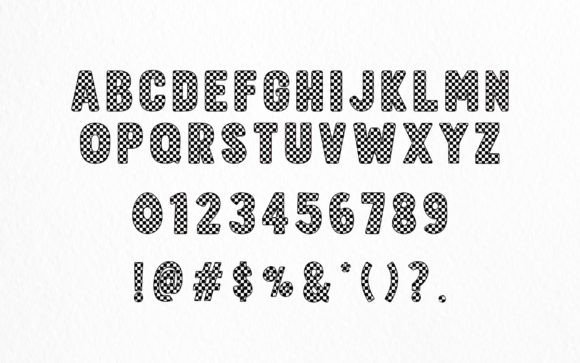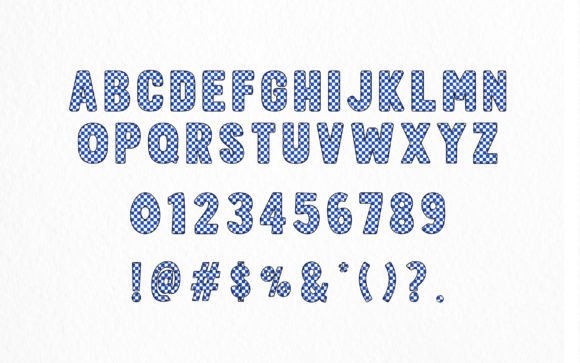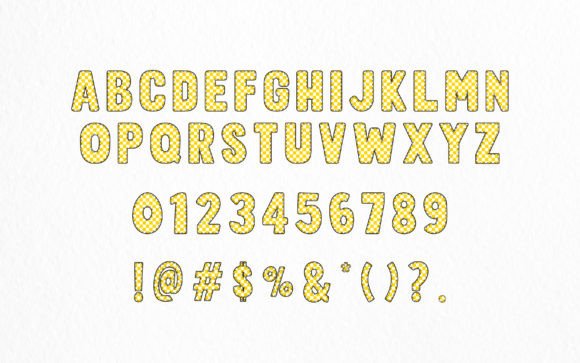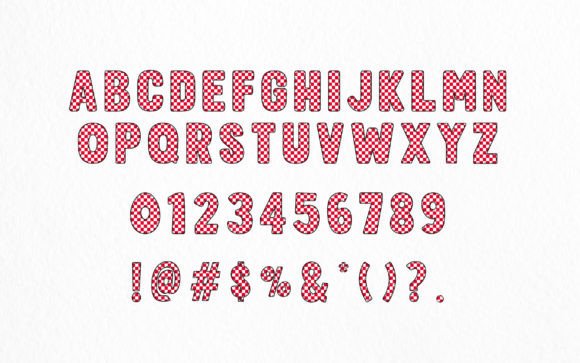
The Ultimate Design Element: Unleashing the Power of the Checkered Army Font
Have you ever found yourself staring at a blank canvas, desperate for that perfect design element to bring your creative vision to life? For many designers, that moment of inspiration can come from the most unexpected places – and for some, it’s the humble checkered pattern that sets their imagination ablaze. Enter the Checkered Army Font, a game-changing addition to any designer’s toolkit.
This innovative font features characters that incorporate a pattern resembling a checkerboard, adding a touch of sophistication and visual interest to any design. With its versatility and compatibility with popular design programs, the Checkered Army Font is an invaluable asset for designers looking to elevate their work. Whether you’re creating custom invitations, logos, or social media graphics, this font is sure to add a unique and eye-catching touch to your designs.
Checkered Army Font Key Features
- Font Family: Checkered Army Font is a unique sans-serif font with a distinctive checkered pattern.
- Unique Characteristics: The checkered pattern creates a dynamic and eye-catching visual effect, perfect for making bold statements.
Designer Review: Checkered Army Font
First impressions are everything, and the Checkered Army Font certainly makes a statement. ✨ The unique, hand-drawn aesthetic and geometric patterns evoke a sense of nostalgia and playfulness, perfect for adding a touch of whimsy to your design projects.
- The font’s versatility is a major plus. ✨ It can be used for a wide range of applications, from headlines and titles to body text and even logos.
- The customization options are also a great feature. ✨ You can adjust the size, color, and spacing to fit your design needs.
However, there are some limitations to consider. ⚠️ The font may not be suitable for all types of projects, particularly those that require a more formal or professional tone. Additionally, the font’s uniqueness can sometimes make it difficult to read, especially in smaller sizes.
Overall, I think the Checkered Army Font is a fun and creative addition to any designer’s toolkit. While it may not be perfect for every project, it’s definitely worth considering for those looking to add a touch of personality to their designs.
The Checkered Army Font is ideal for designs that require a bold, eye-catching font. It’s commonly used for:
- Poster and flyer designs.
- Streetwear and gaming branding.
- Graphic novels and comic book art.